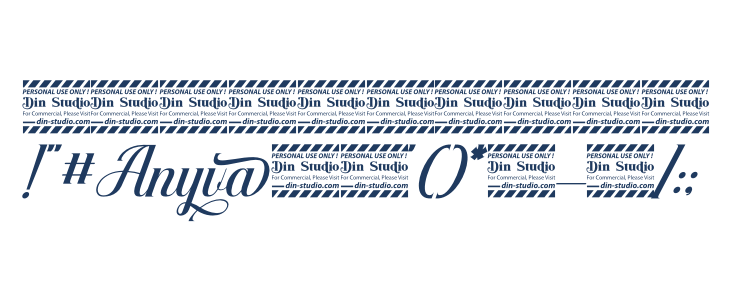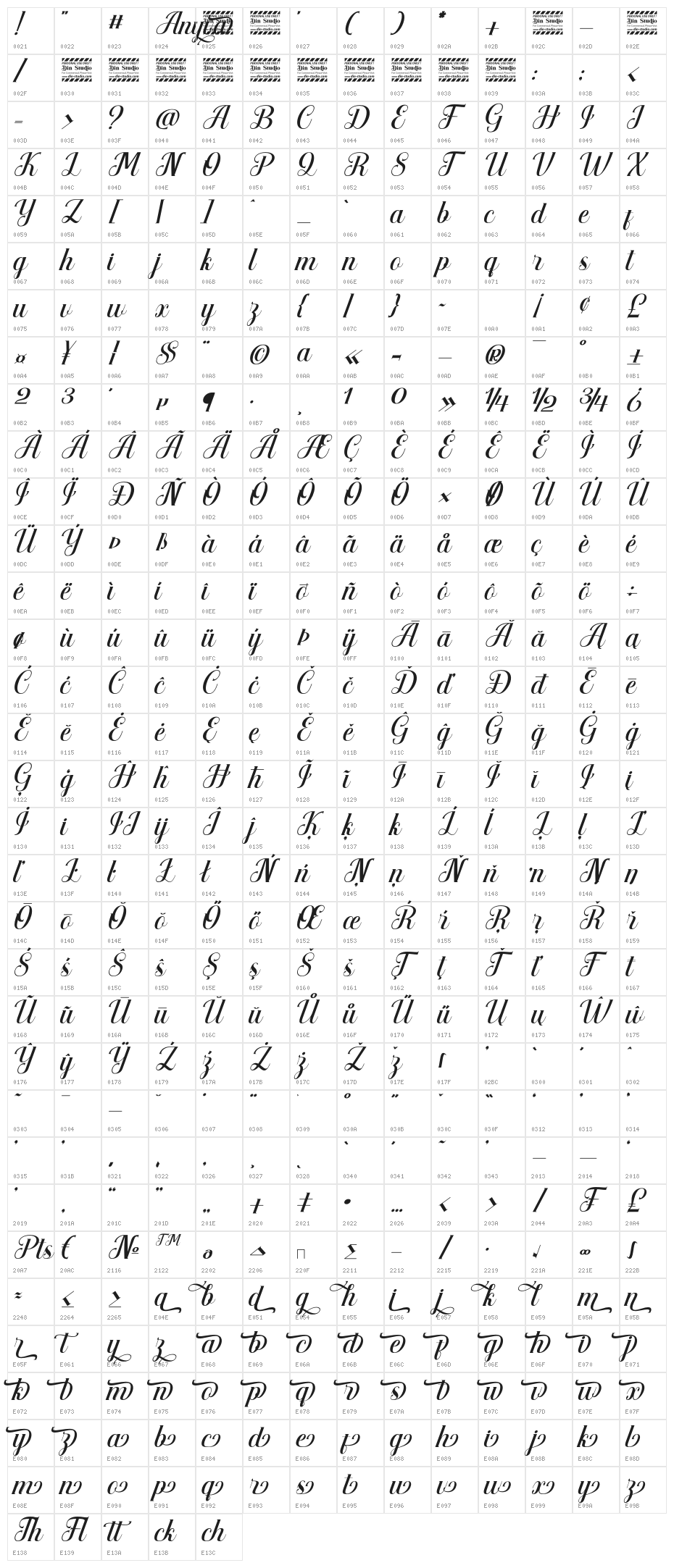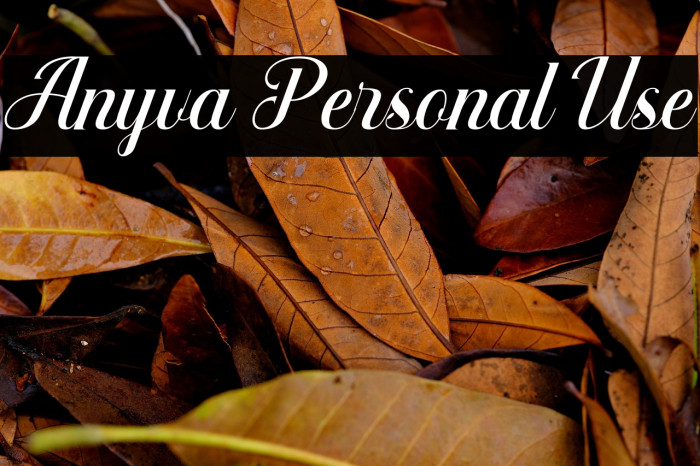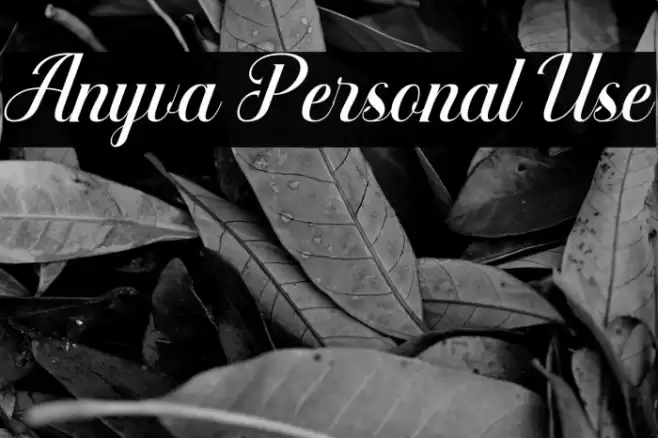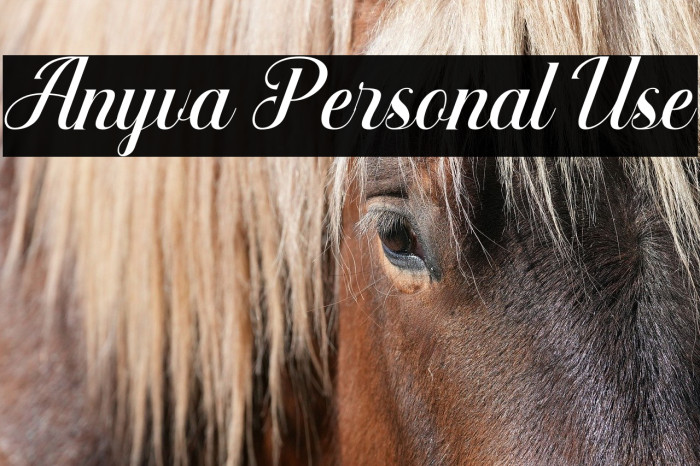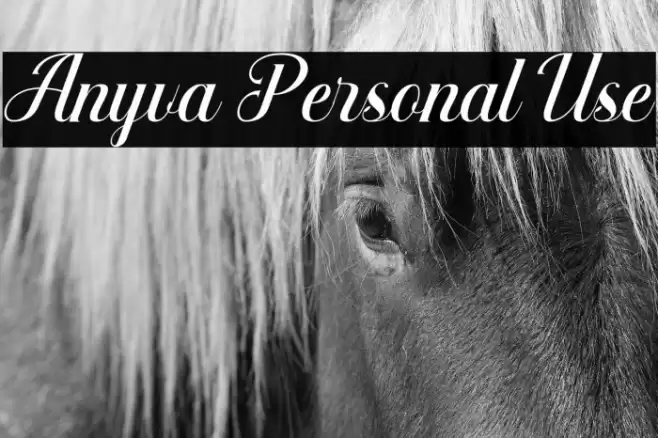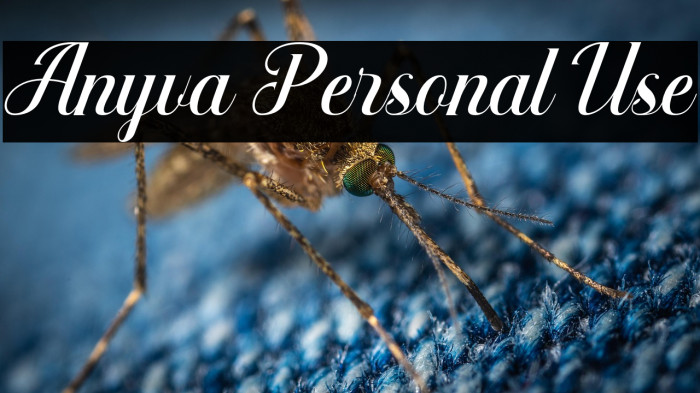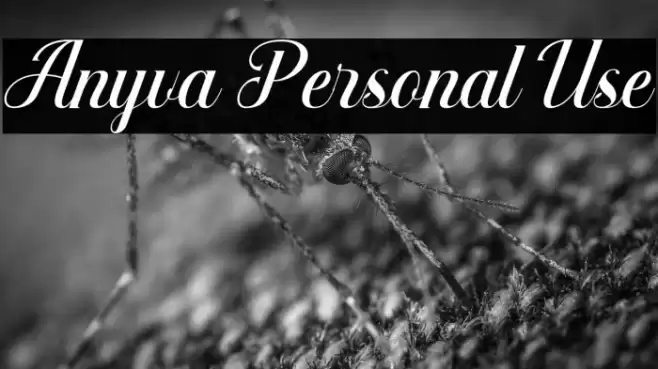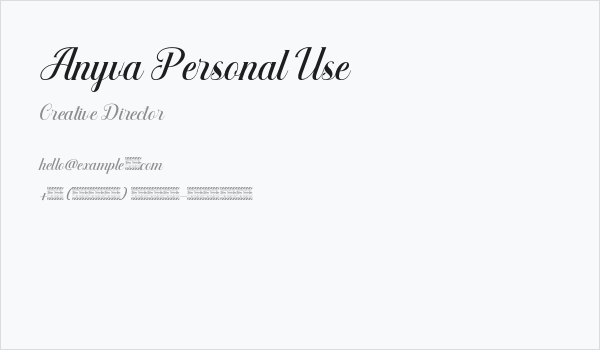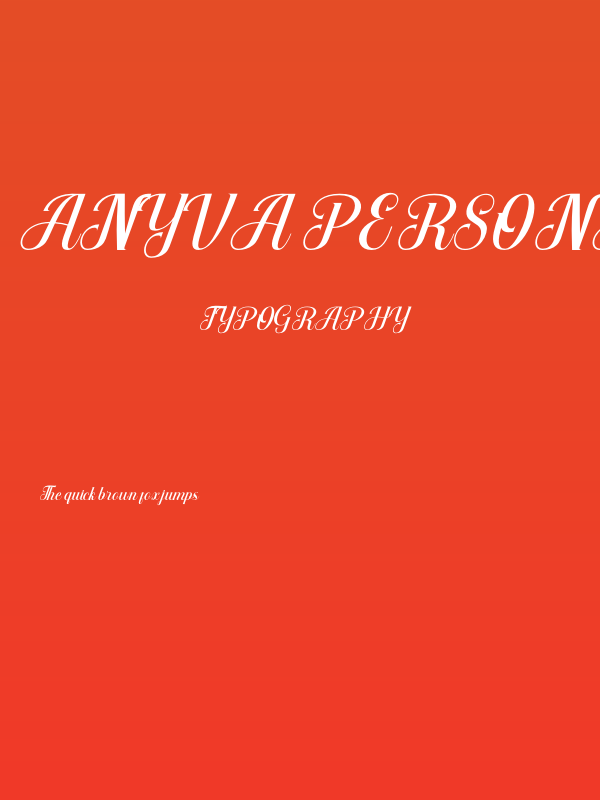
Anyva Personal Use Font
Anyva Personal Use Description
This font features an elegant and flowing script style, characterized by its smooth, cursive letterforms and graceful curves. The uppercase letters are ornate and sophisticated, with a slight slant that adds to their dynamic appearance. The lowercase letters maintain a consistent style, with elongated ascenders and descenders that enhance the font's fluidity. The numerals and special characters are designed to match the overall aesthetic, ensuring a cohesive look across all text elements. This font's decorative nature makes it suitable for projects that require a touch of elegance and sophistication.